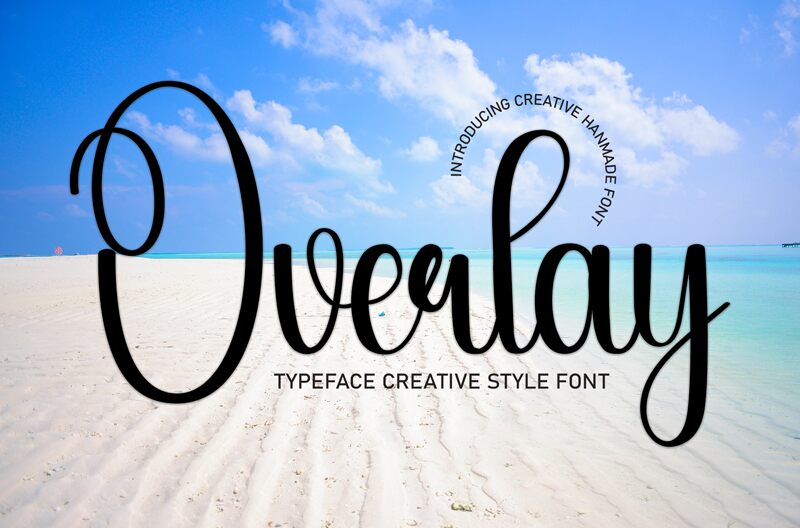
Overlay
Overlay font by Andi Moz is a charming handwritten display font that captivates with its sweet and playful aesthetic. Its friendly curves and delightful flow make it an excellent choice for projects needing a whimsical touch.
The soft, rounded strokes evoke a sense of warmth and approachability, enhancing the charm of wedding invitations, greeting cards, or any creative endeavor looking for a joyful expression. As a free font available for download, Overlay offers designers an opportunity to infuse their work with personality and style effortlessly. Suitable for both personal and professional use, it seamlessly bridges the gap between fun and elegance.